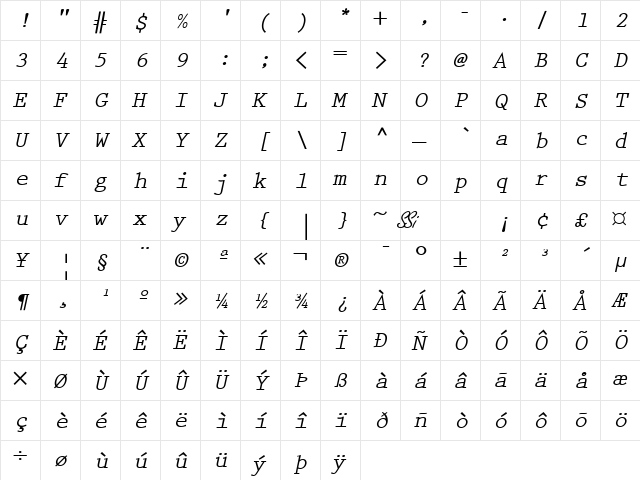
Keyboard Elite SSi Bold Italic
Design Context for Keyboard Elite SSi Typeface
Keyboard Elite SSi takes a measured approach to typography — its balanced proportions and neutral character make it a reliable workhorse for both digital and print work. The dynamic lean of this cut emphasises speed and emphasis in any layout. Its bold stroke weight gives it real presence on the page.
Pro Tip: Use Keyboard Elite SSi for emphasis, pull quotes, and subheadings where its slanted energy can add rhythm to the layout.